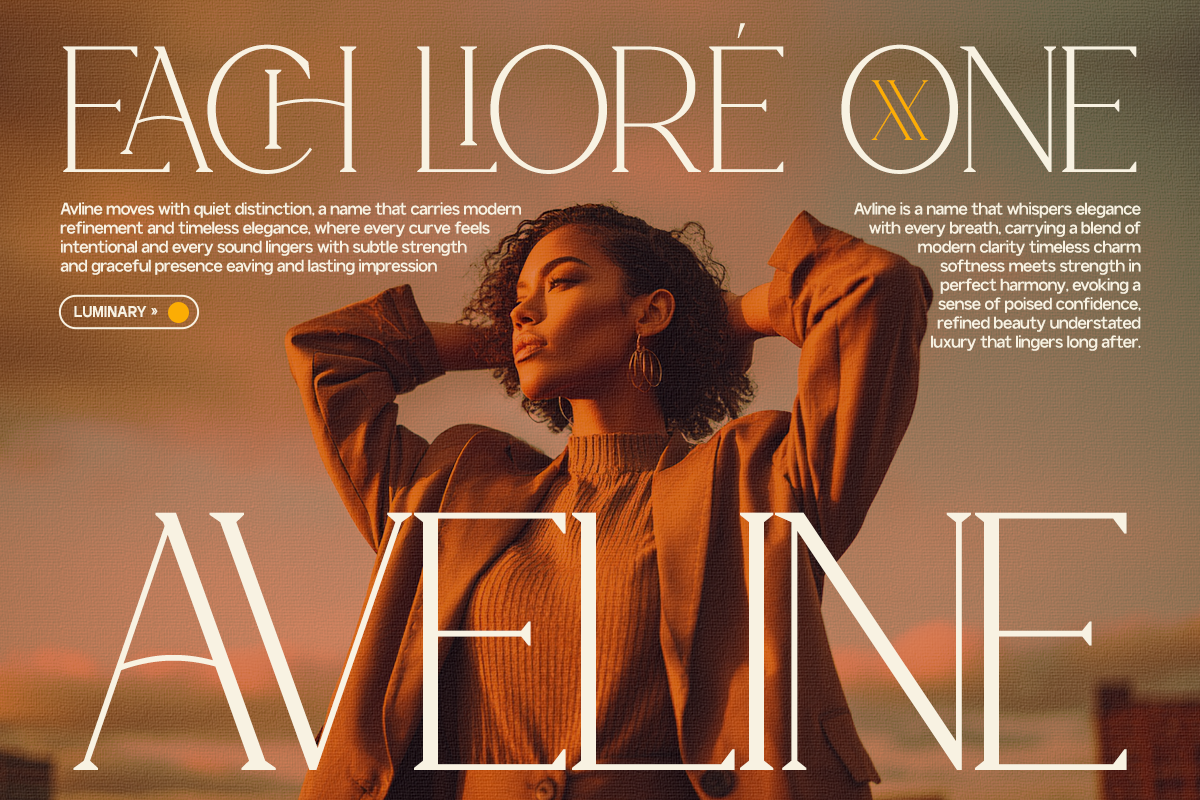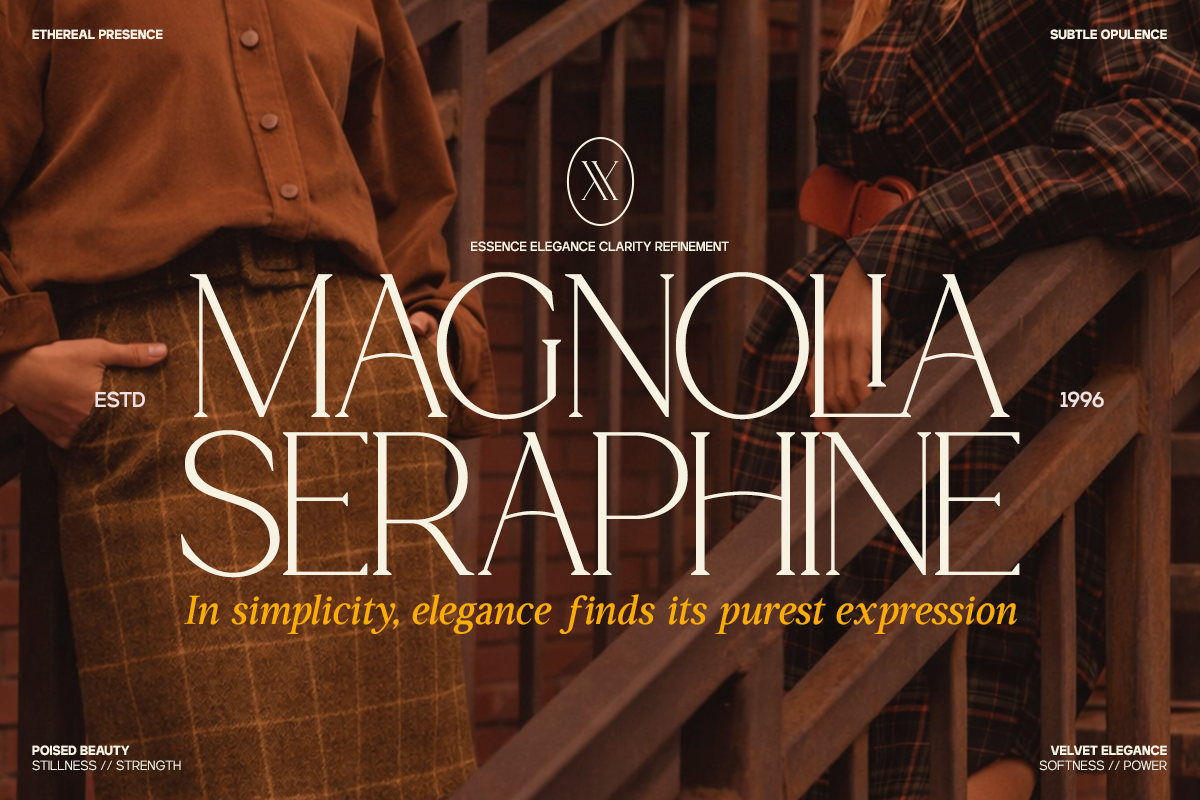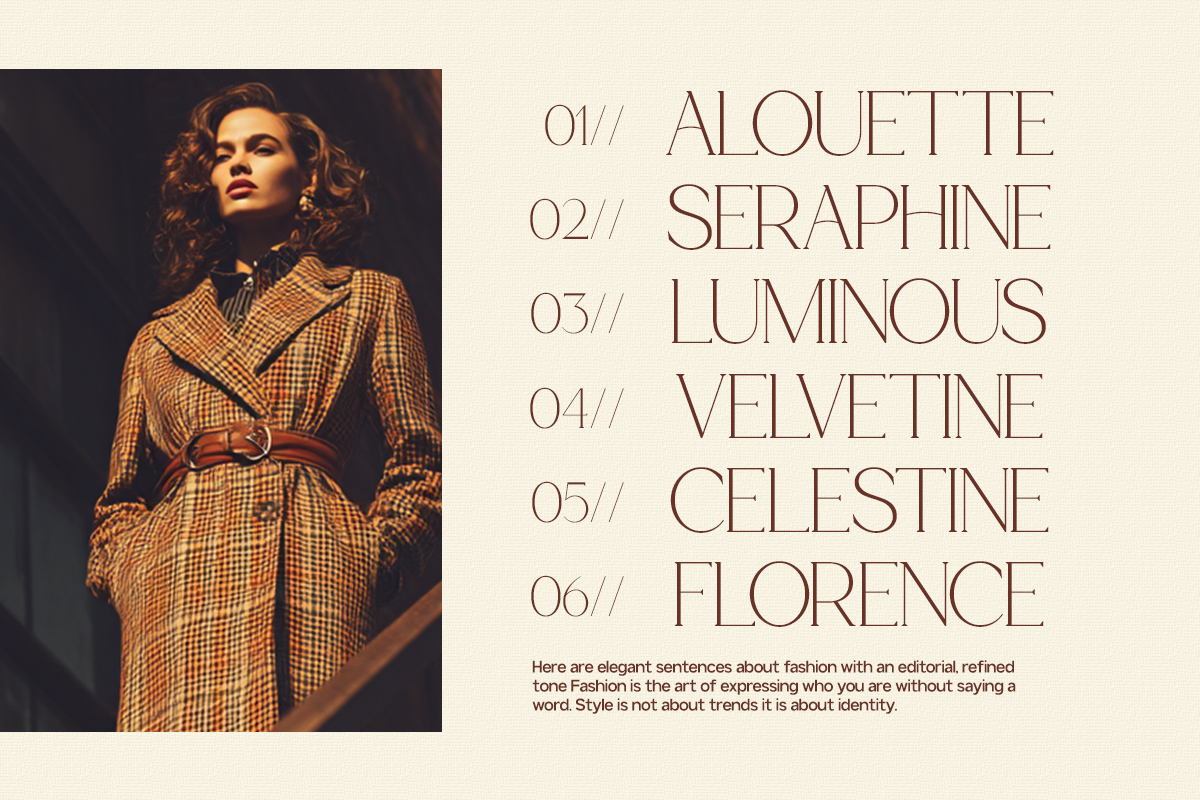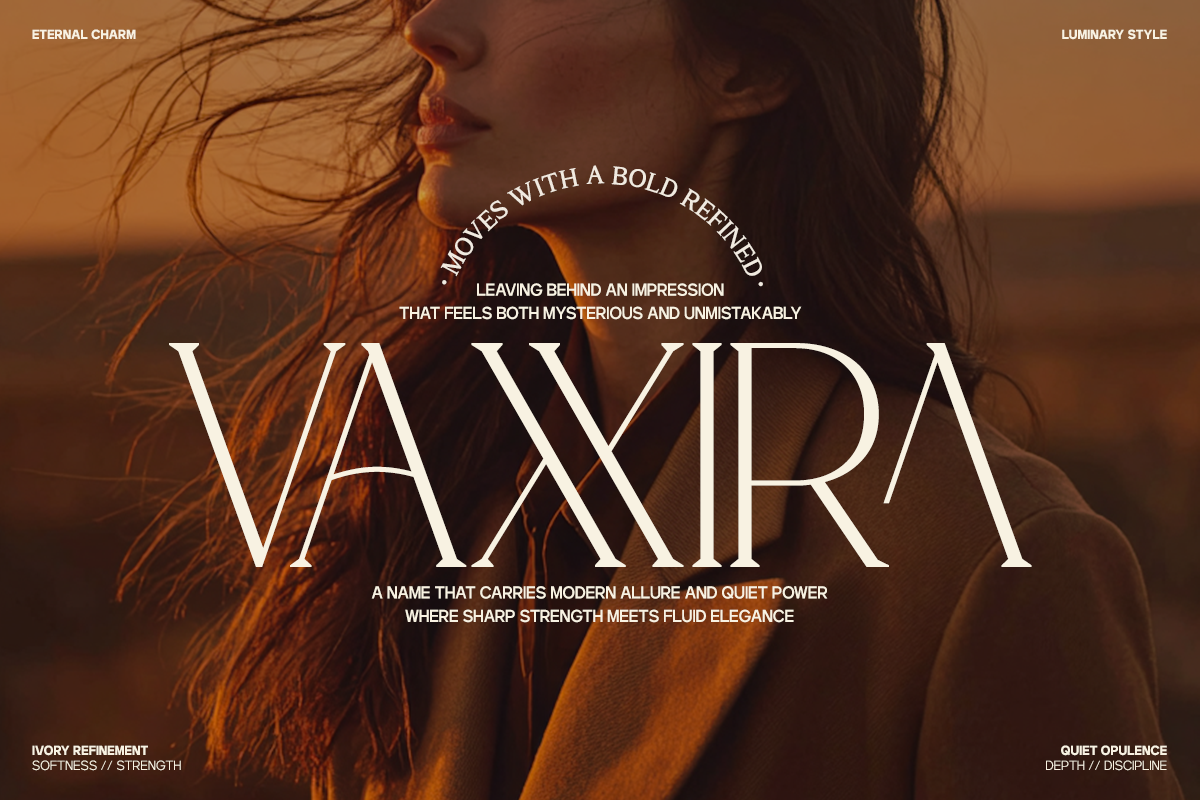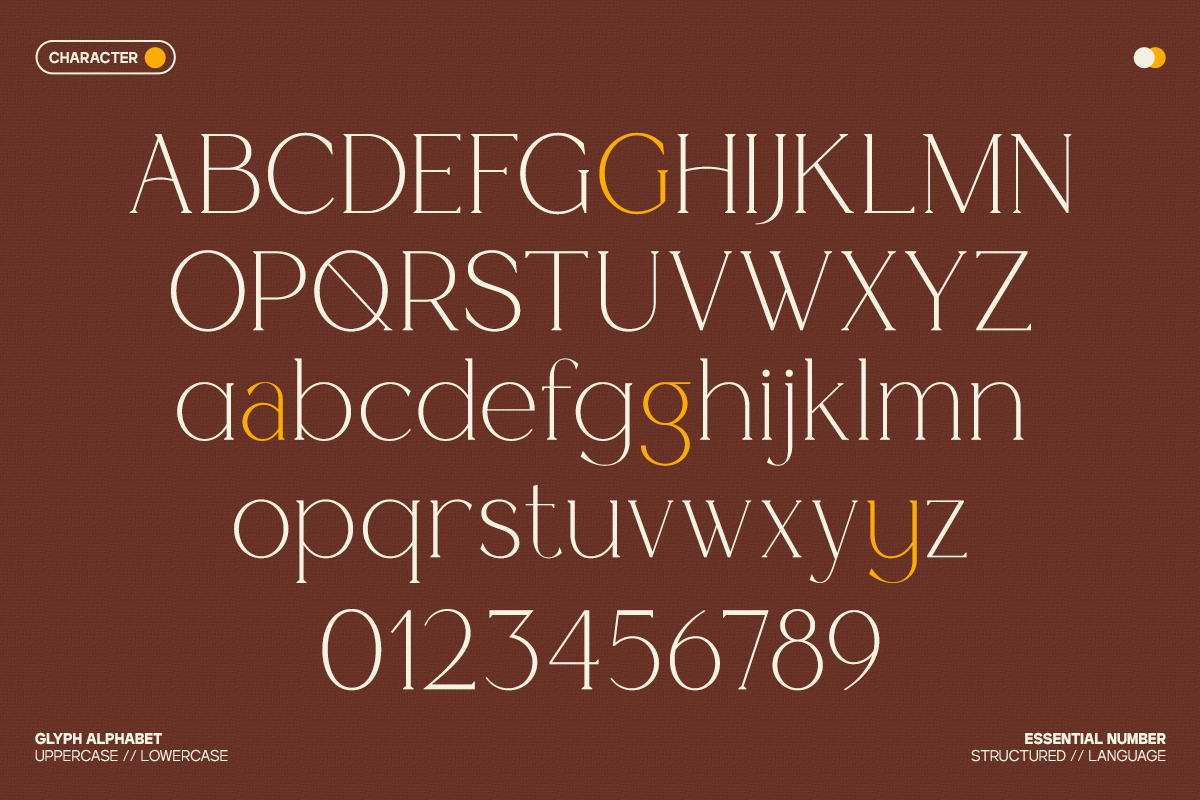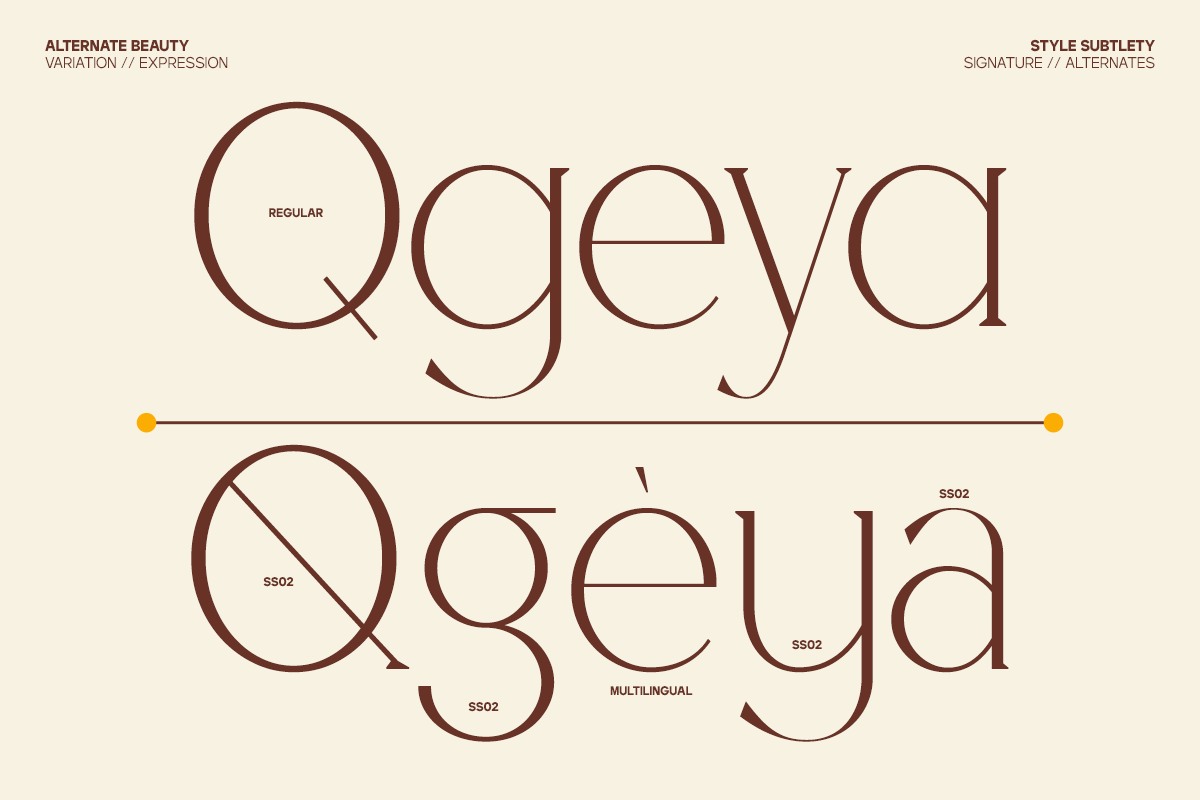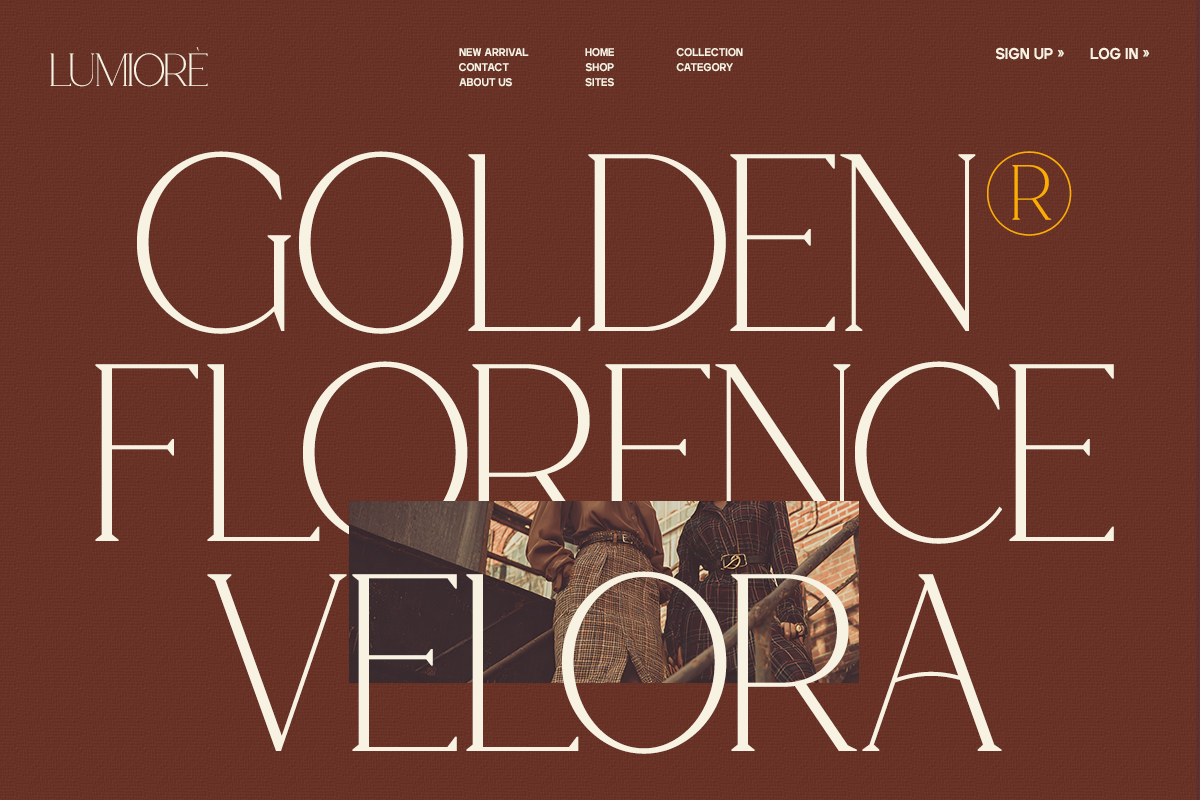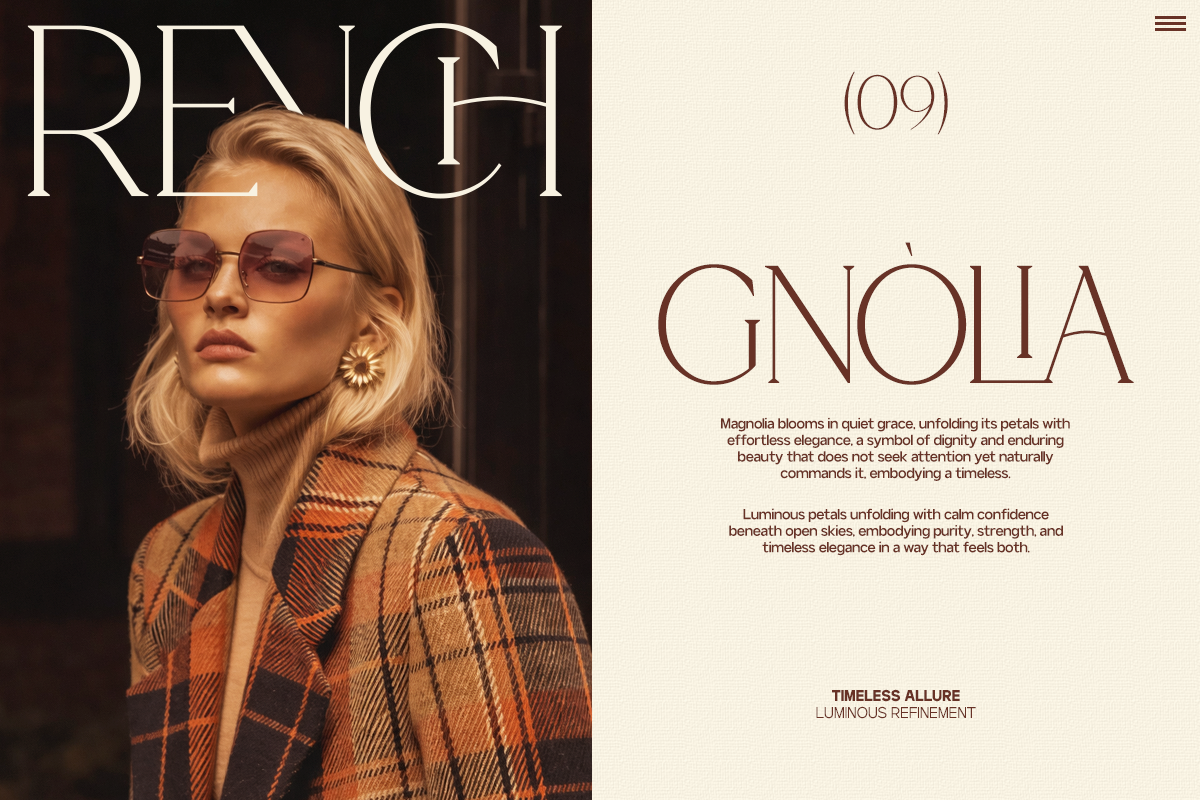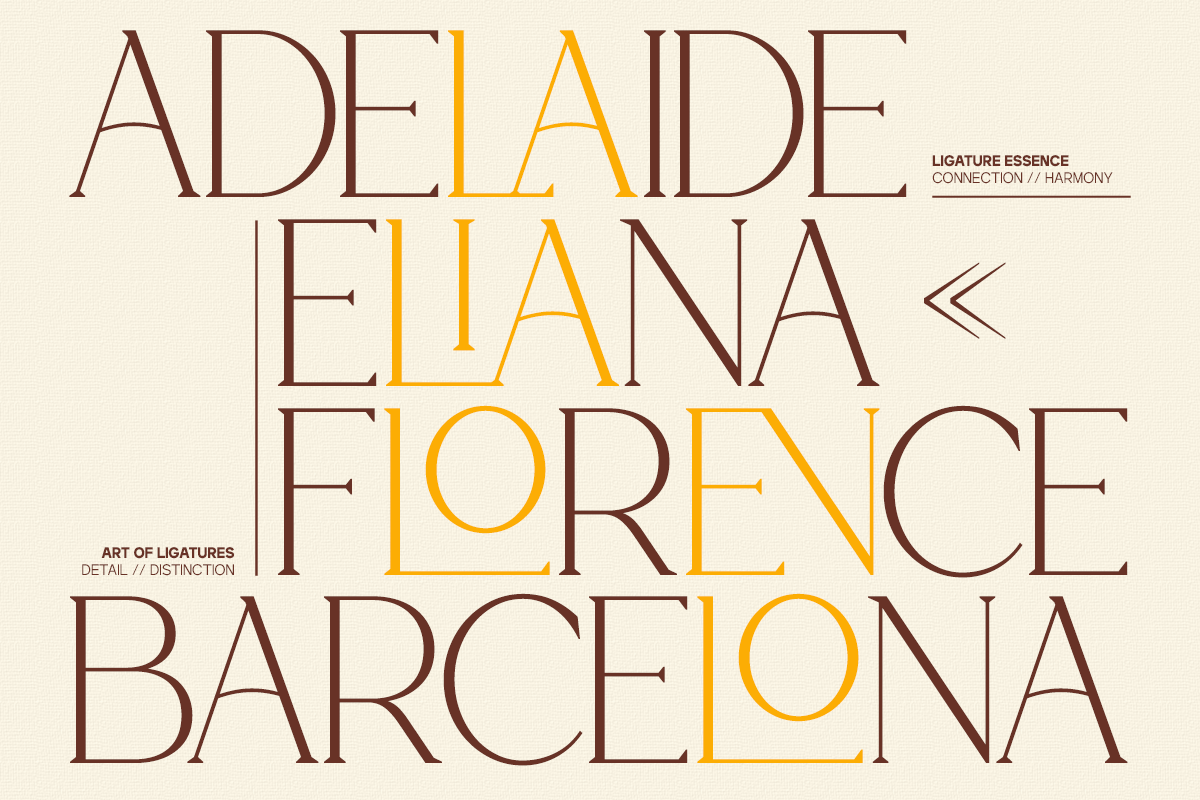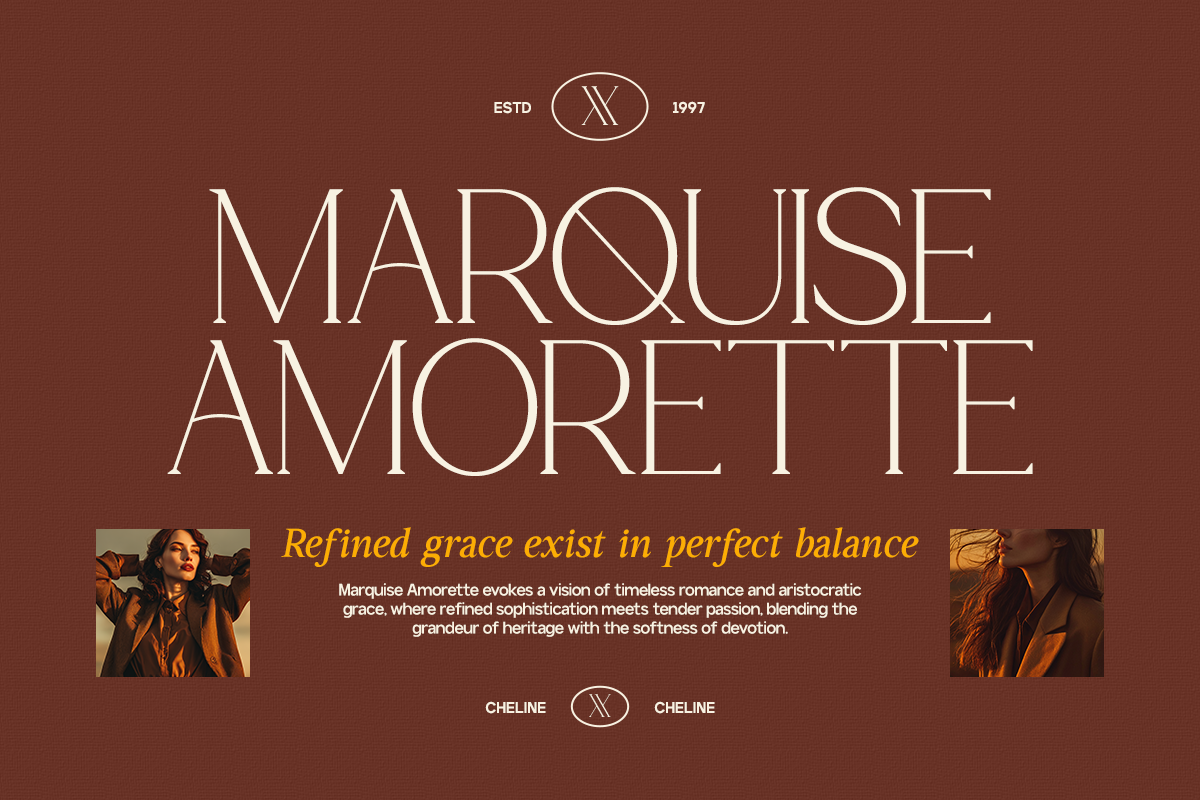
GC Cheline - Modern Elegant Serif
GC Cheline – Modern Elegant Serif is a refined serif typeface designed to express grace, sophistication, and contemporary beauty. Crafted with delicate contrast, smooth curves, and balanced proportions, it delivers a timeless yet modern voice that feels luxurious and confident.
Combining classic serif foundations with modern detailing, GC Cheline is perfect for high-end branding, fashion editorials, beauty packaging, wedding designs, luxury logos, and premium visual identities. Its elegant letterforms create a harmonious rhythm that enhances both headlines and refined body text.
Carefully structured to maintain clarity and poise across print and digital media, GC Cheline brings softness without losing authority—making every composition feel polished and intentional.
- Modern Elegant Serif Construction
- Multilingual Support (170+ Languages)
Elevate your design with timeless elegance and modern sophistication using GC Cheline – Modern Elegant Serif.